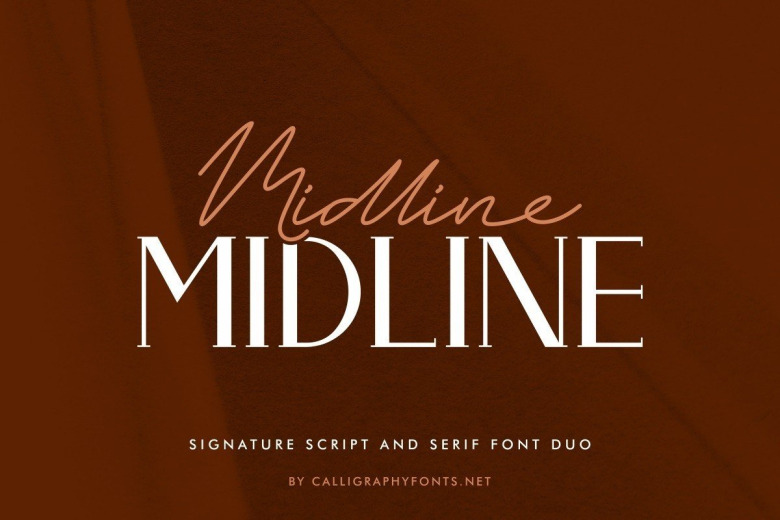
Midline Font Duo
Midline Font Duo is a TWO different font styles : Serif display and Signature Script . The style of this font are minimalist, signature, modern, elegant, luxury, glamour, classic and simple lettering.